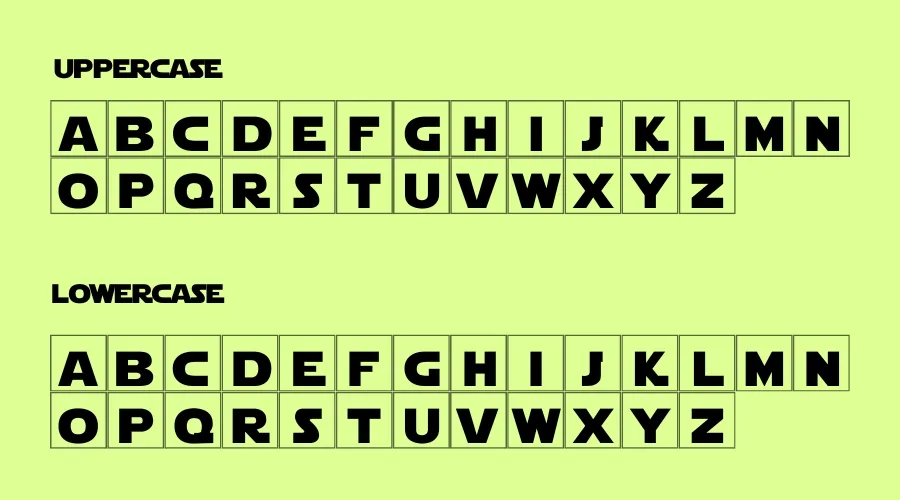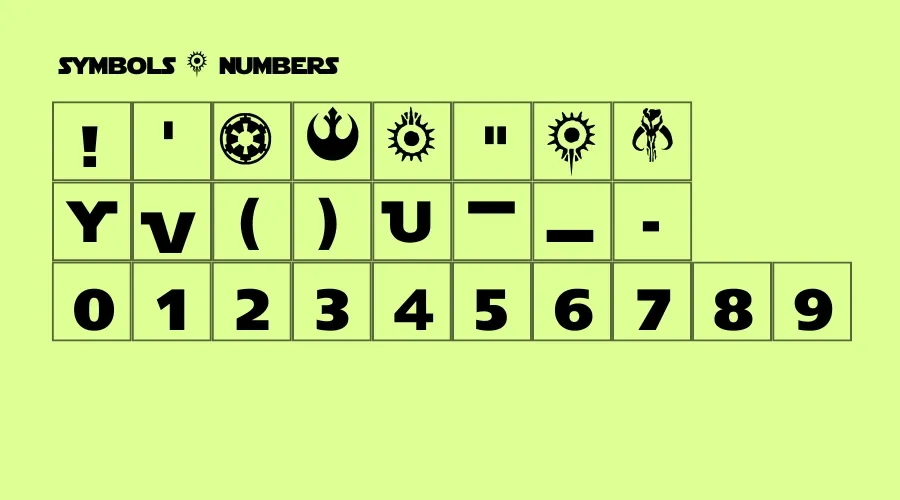
About Star Wars Font
In 1976, this gorgeous font was designed by a well-known typographic designer named Ralph McQuarrie. The Star wars font is based on the logo texture and is very similar to a famous typeface known as the name of the Star Jadi font that was created by Boba Fonts. It is suitable for various kinds of tasks and methods and is available in both OTF and TTF file formats.
This stunning texture has an online generator tool, in which you may change all your normal types of alphabet characters into stylish and attractive shapes. This font goes well with the alien font and is the perfect choice for both CSS and adobe photoshops.
It contains various types of styles and weights such as bold, italic, and regular. This gorgeous font has various types of characters such as uppercase letters, symbols, numerals, digits, and many other purposes.
The Star wars font has a stylish and stunning texture that is perfect for making various purposes. You may utilize this font for logos, posters, banners, and many other projects.
This font gained popularity in a very short time because it supports many international languages such as Spanish, French, Arabic, English, Mandarin, Hindi, Bengali, and Russian. Many designers utilize this font for various software such as canvas, Word, Illustrator, and coral draw.
The ffx logo font can be paired with this typeface and create incredible projects. It can be utilized for making wedding cards, office cards, business cards, invitation cards, and birthday cards.
Who designed Star Wars typeface?
This bold and sturdy font is designed by Ralph McQuarrie, who has also created many famous fonts including this one.
Where can we use star wars font?
You can use this font, especially for display designs, and you can also create posters, banners, and many other purposes.
What type of font is Star Wars Font?
It is an elegant and bold texture that was designed by a well-known typographic designer named Ralph McQuarrie in 1976.